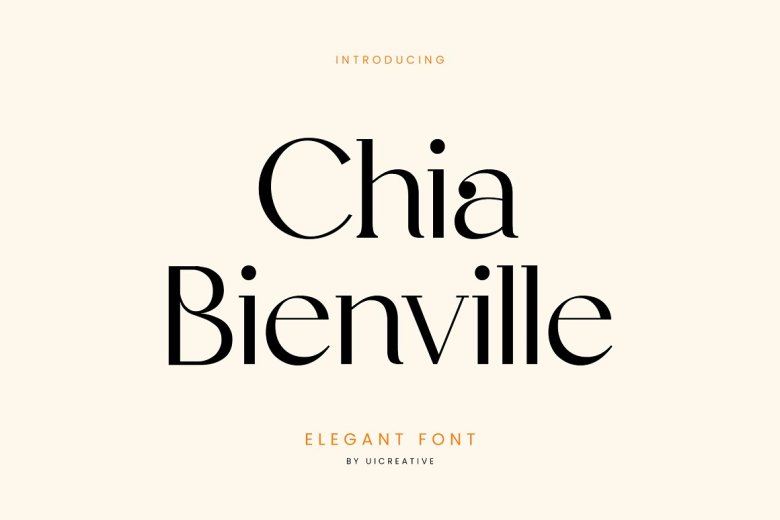
Chia Bianville Font
Chia Bianville is a sexy, low contrast, elegant serif typeface that feels good old fashioned, steamy and sexy. This font is ideally suited for a wide variety of projects, such as signature, stationery, logo, wedding, typography quotes, magazine or book covers.
Chia Bianville Serif Font